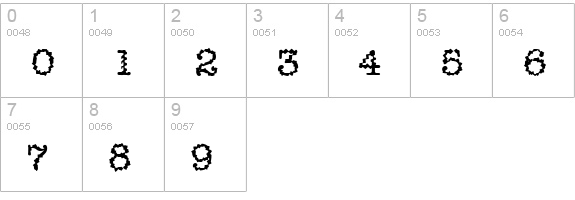
Dirtee Font Details
Dirtee font is a unique and edgy typeface that perfectly captures a sense of urban grit and raw energy. Its bold and rugged letterforms convey a rebellious spirit, making it a perfect choice for projects that require a touch of urban attitude. The distressed appearance of the characters adds a sense of texture and depth to any design. What sets Dirtee font apart is not only its striking design, but also the fact that it is available for free download at FontsMarket.com. This means that you can easily incorporate this eye-catching typeface into your projects without any additional cost. Whether you're working on a poster, flyer, or branding materials, Dirtee font is sure to make a bold statement and leave a lasting impression on your audience. Download it now and add a touch of urban flair to your designs!